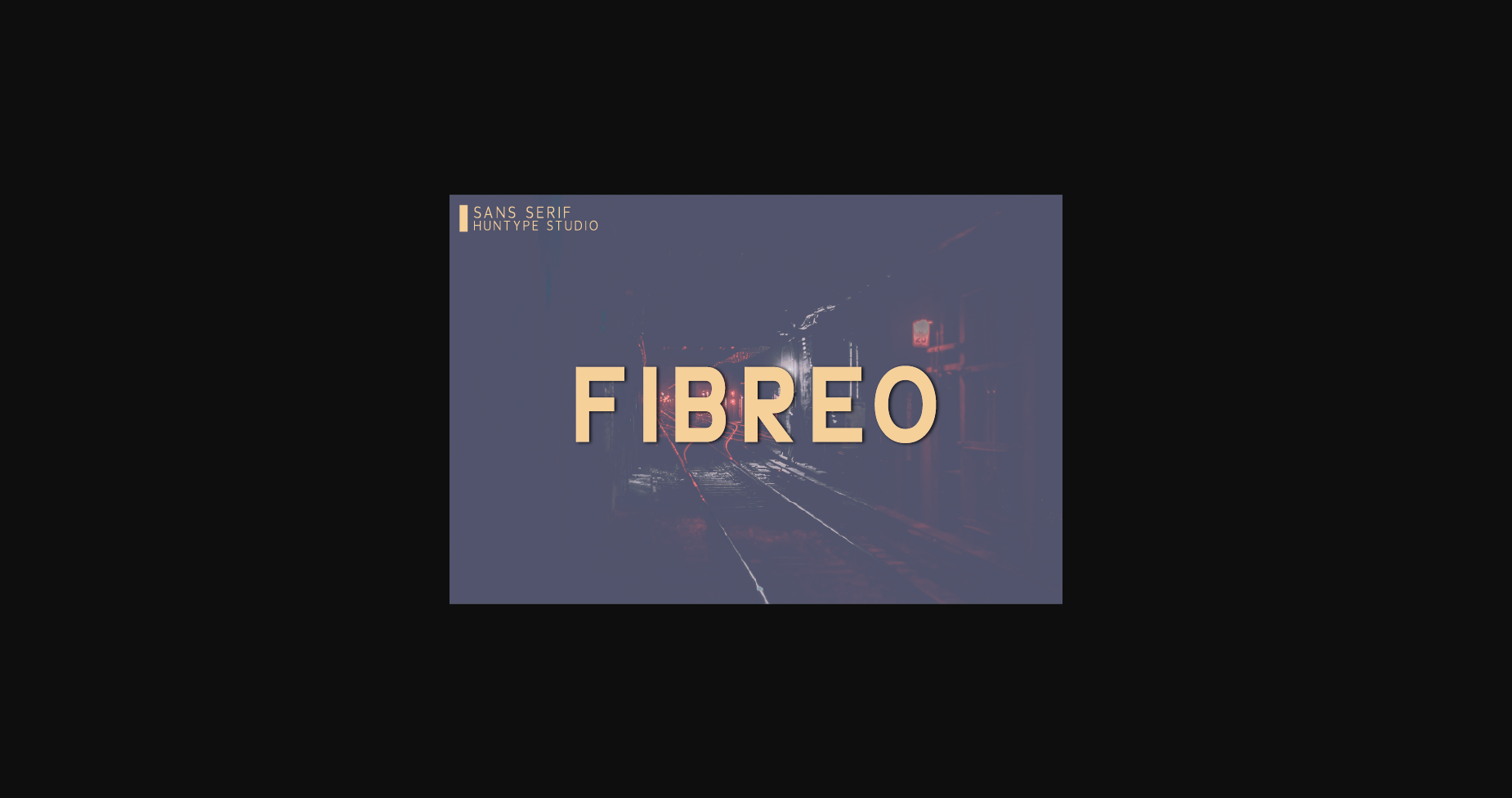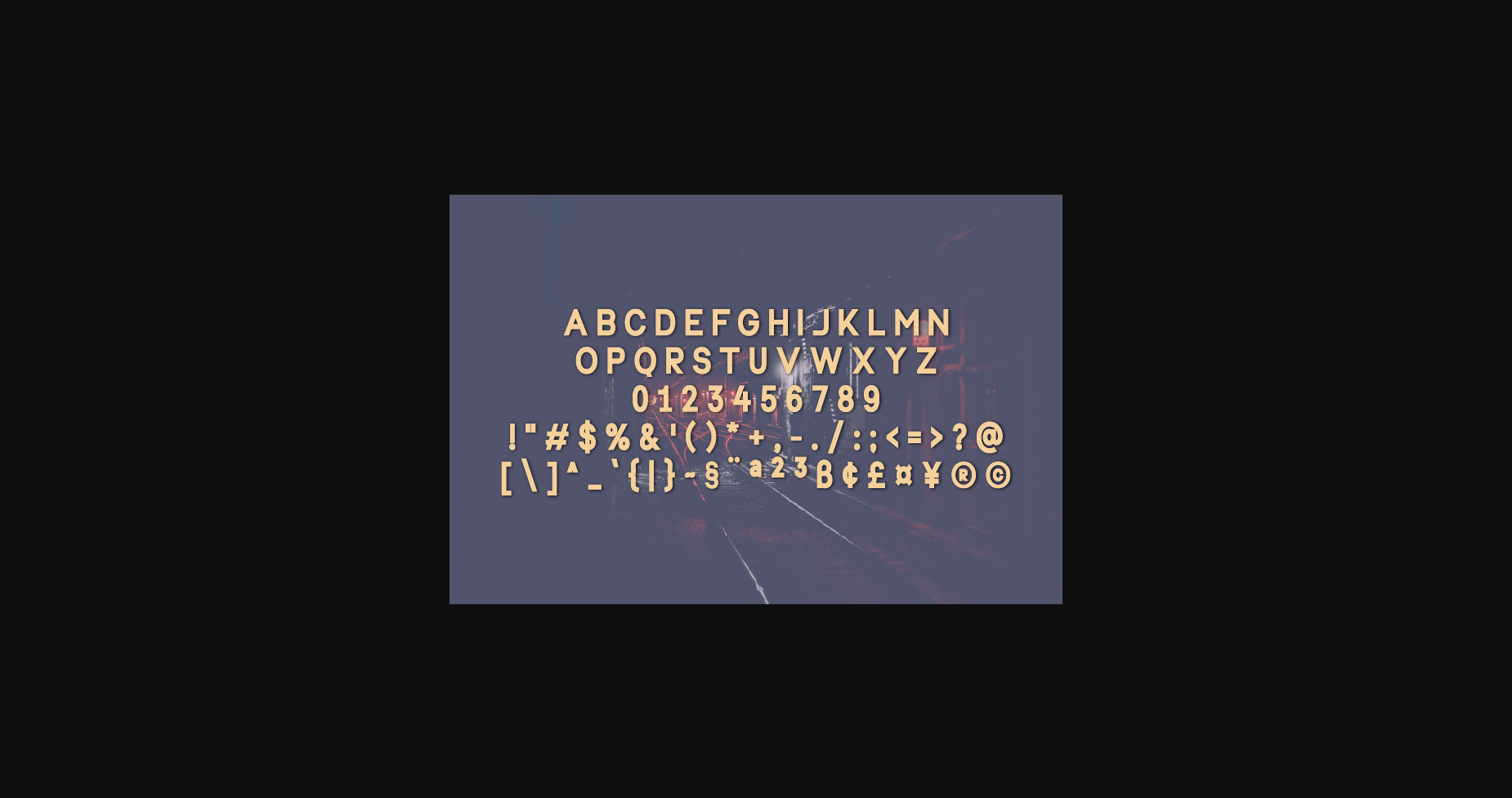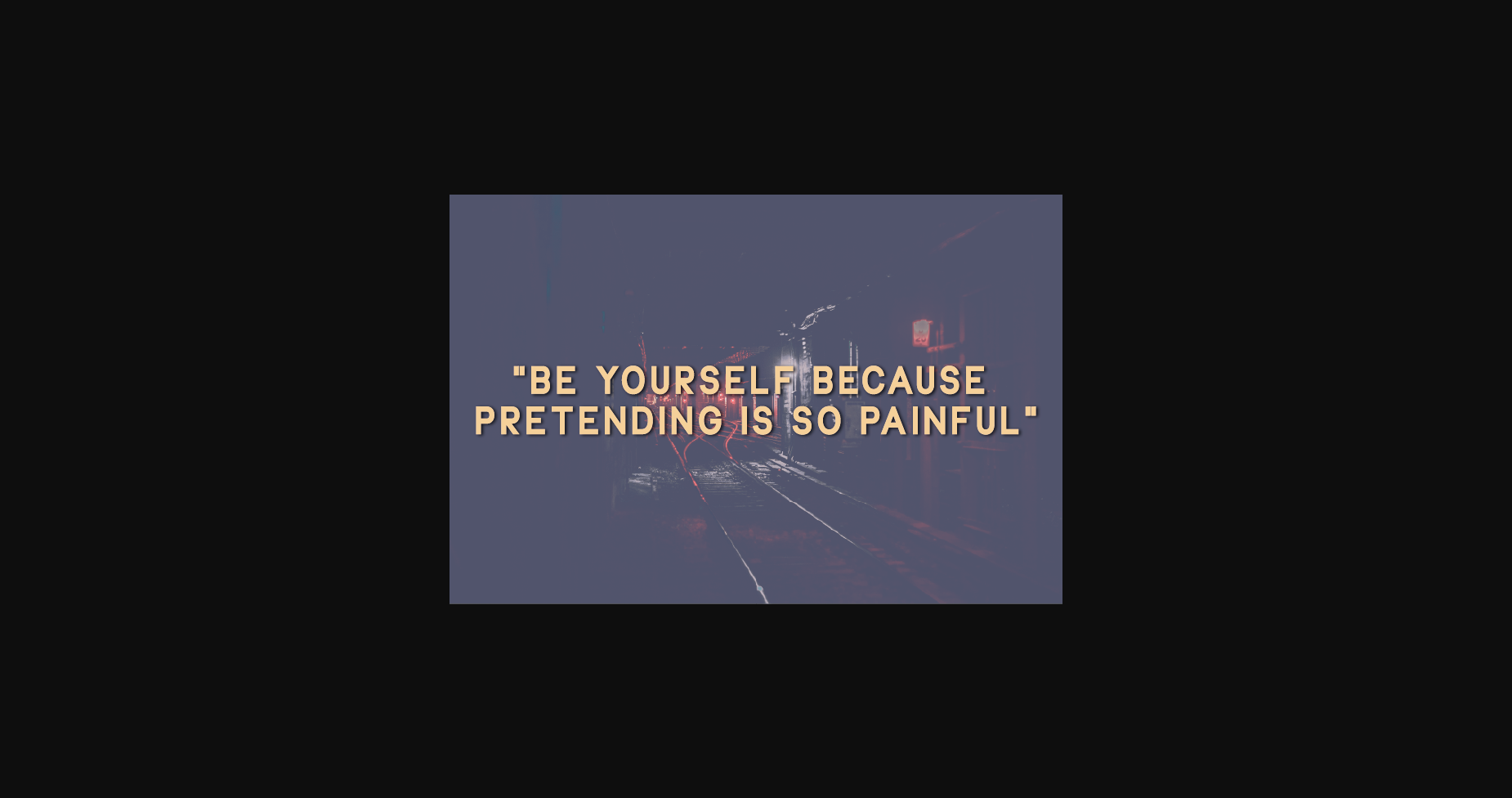
Fibreo Font
About Fibreo Font
Fibreo is a minimal and neat sans serif font. It can easily be matched to an incredibly large set of projects, so add it to your creative ideas and notice how it makes them stand out!